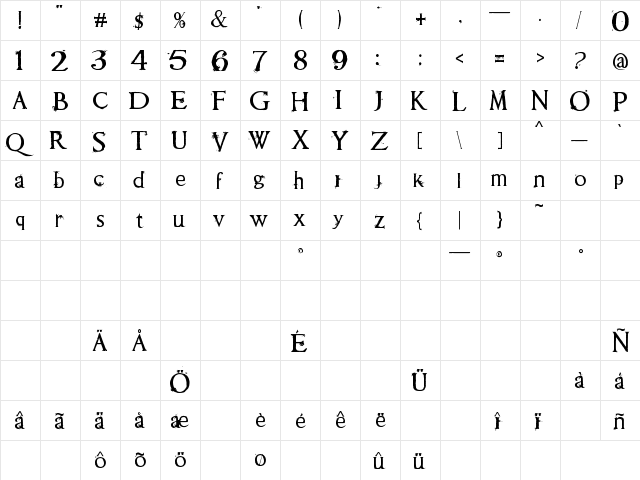
Requiem II Regular
Design Context for Requiem II Typeface
Requiem II is a composed and adaptable typeface that performs quietly and consistently across a wide range of design contexts.